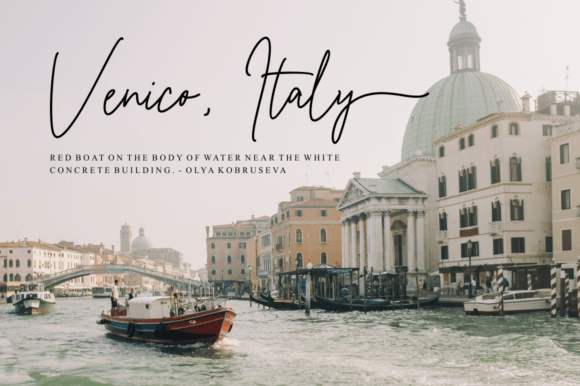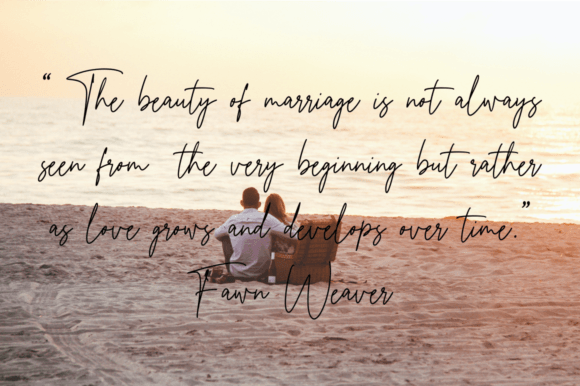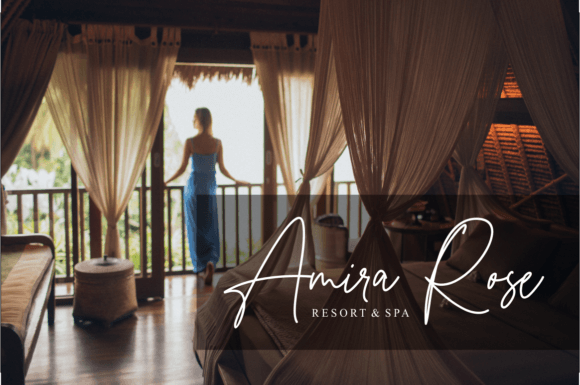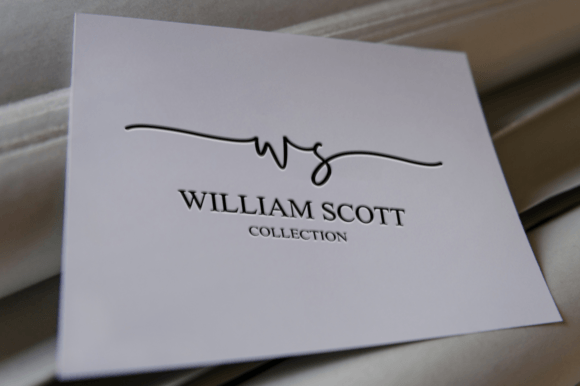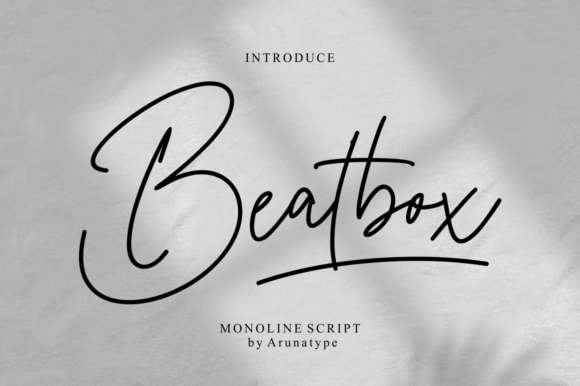
Introducing Beatbox Font: Elevate Your Designs with Smooth, Curved Lines
In the world of design, fonts play a crucial role in conveying messages, evoking emotions, and creating a lasting impression. If you’re a designer, craftsperson, or simply someone who loves to create, you’re likely always on the lookout for the perfect font to make your work stand out. Look no further than Beatbox Font, a beautiful handwritten font that’s sure to elevate your designs with its smooth, curved lines.
What is Beatbox Font?
Beatbox Font is a stunning handwritten font that’s designed to add a touch of elegance and sophistication to your work. Its smooth, curved lines create a beautiful, flowing effect that’s perfect for a wide range of design projects. Whether you’re working on product packaging, branding projects, magazine covers, social media graphics, or wedding materials, Beatbox Font is the perfect choice.
Key Features of Beatbox Font
• Beautiful Handwritten Design: Beatbox Font boasts a gorgeous handwritten design that’s sure to capture attention and leave a lasting impression.
• Smooth, Curved Lines: The font’s smooth, curved lines create a beautiful, flowing effect that’s perfect for a wide range of design projects.
• PUA Encoded: Beatbox Font is PUA encoded, which means you can access all of the glyphs and swashes with ease. This makes it simple to customize your designs and add a personal touch.
• Versatile: Beatbox Font is perfect for a wide range of design projects, from product packaging and branding to magazine covers and social media graphics.
Why Choose Beatbox Font?
So why choose Beatbox Font for your next design project? Here are just a few reasons why this font stands out:
• Unique and Eye-Catching: Beatbox Font is a unique and eye-catching font that’s sure to make your work stand out from the crowd.
• Easy to Use: With its PUA encoding, Beatbox Font is easy to use and customize, even for those who are new to design.
• High-Quality Design: Beatbox Font is designed with high-quality in mind, ensuring that your work looks professional and polished.
How to Use Beatbox Font
Using Beatbox Font is simple and straightforward. Here are a few tips to get you started:
• Pair it with Other Fonts: Beatbox Font pairs well with other fonts, so don’t be afraid to experiment and find the perfect combination for your design.
• Experiment with Colors: Beatbox Font looks great in a variety of colors, so try experimenting with different hues and shades to find the perfect look for your design.
• Use it for Headings and Titles: Beatbox Font is perfect for headings and titles, where its smooth, curved lines can really shine.
Beatbox Font is perfect for designers and crafters who are looking for a beautiful, unique font to add to their collection. Whether you’re working on a client project or creating something for personal use, Beatbox Font is sure to impress.
• Designers: Beatbox Font is a great addition to any designer’s toolkit, offering a unique and eye-catching font that’s perfect for a wide range of projects.
• Crafters: Beatbox Font is also perfect for crafters who love to create handmade cards, gift tags, and other paper crafts.
In conclusion, Beatbox Font is a beautiful handwritten font that’s sure to elevate your designs with its smooth, curved lines. With its PUA encoding, versatile design, and high-quality construction, Beatbox Font is the perfect choice for designers and crafters who are looking for a unique and eye-catching font. So why wait? Download Beatbox Font today and start creating stunning designs that are sure to impress!